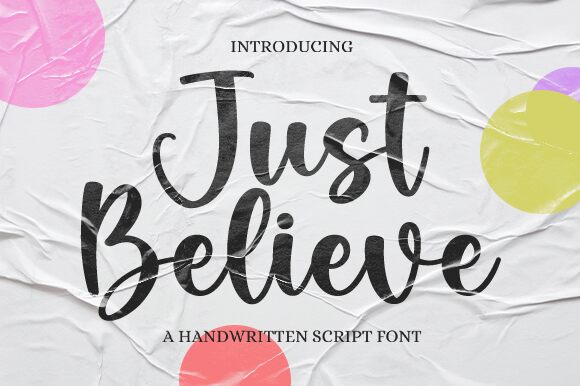
Just Believe, a creation by Graphix Line Studio, is a semi-bold handwritten font that exudes charm and character. Its fluid strokes and varied line weights possess an organic quality often sought after in personal branding, invitation design, and creative advertising. The aesthetic appeal of Just Believe lies in its balance between legibility and artistic flair, making it an excellent choice for those wishing to add a human touch to their digital communications.
The style of Just Believe captures the spontaneity of hand lettering while maintaining the consistency necessary for versatile use across print and digital media. Whether it's bringing warmth to social media graphics or adding personality to editorial content, this font provides designers with a tool that marries informality with elegance.